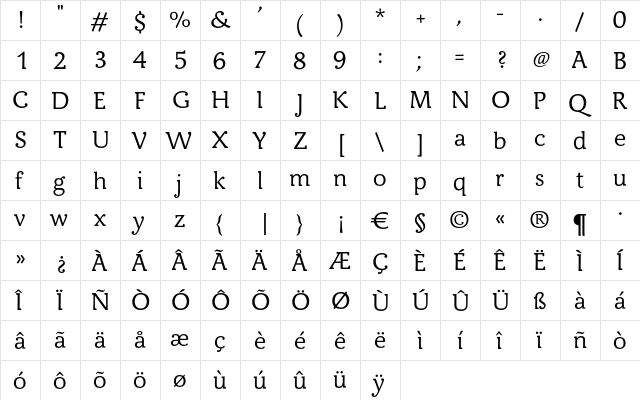
CarrefourPatin Normal
Design Context for CarrefourPatin Typeface
CarrefourPatin is a composed and adaptable typeface that performs quietly and consistently across a wide range of design contexts.
Pro Tip: Use CarrefourPatin in both headline and body roles to test its range before committing to a single application.